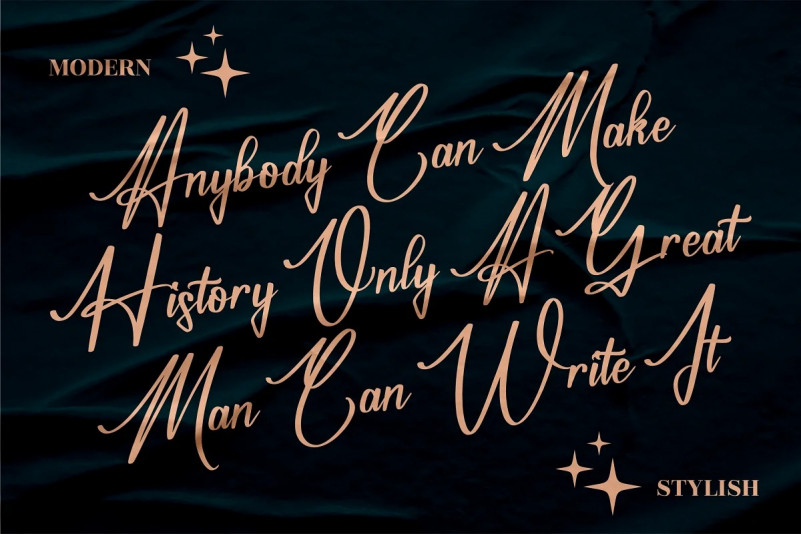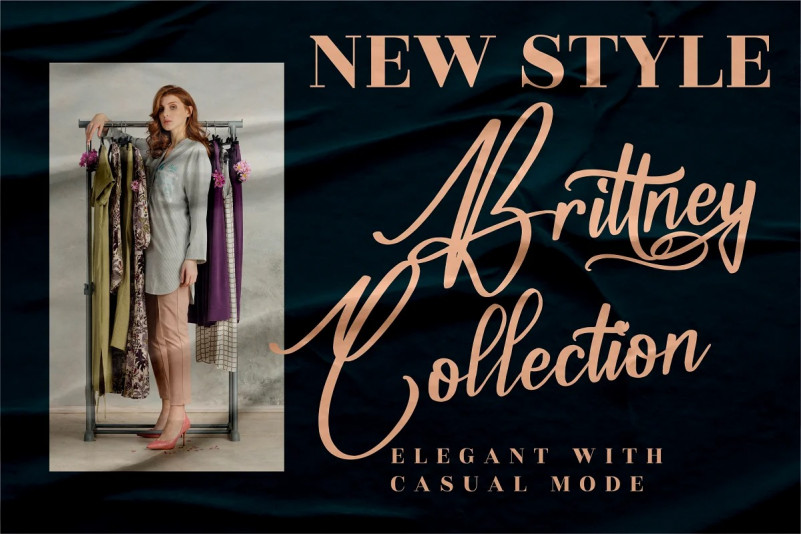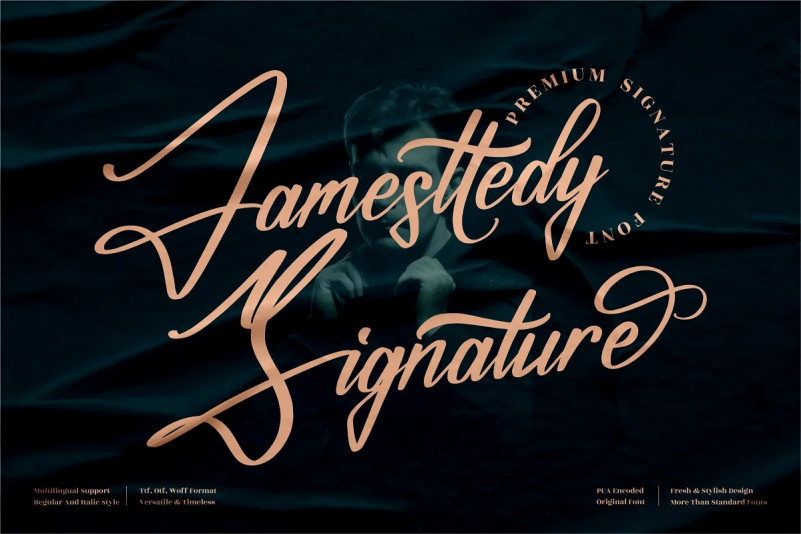
Abu Dhabi Handwritten Font
Introducing the new “Abu Dhabi” font, a handwritten signature font. For those of you who are needing a touch of clean handwritten signature, chic and modernity for your designs, this font was created for you! Abu Dhabi was built with beautiful ligatures and alternate ending. and It has an extensive lingual support, covering all European Latin scripts.